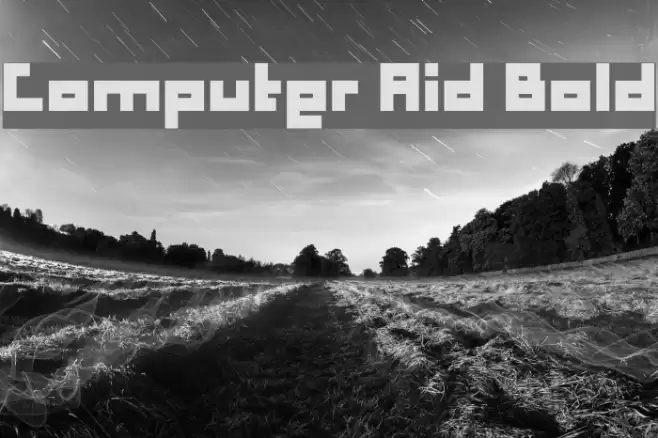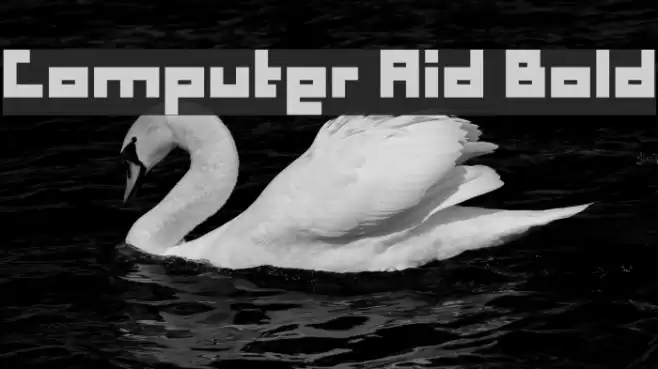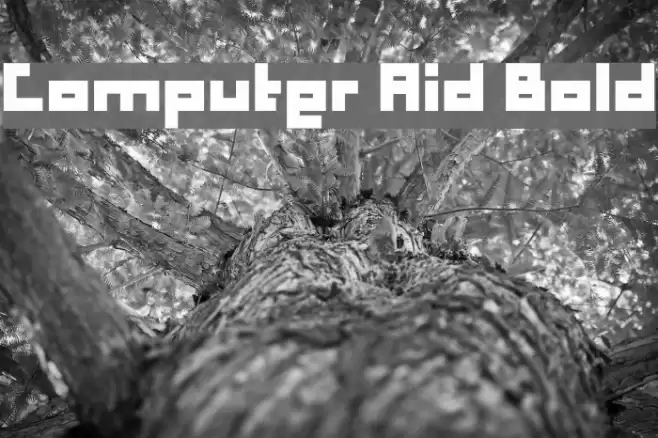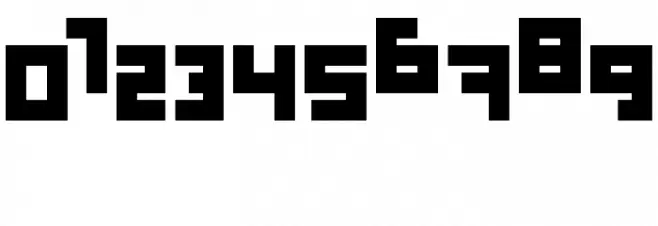
Computer Aid Bold Font
Computer Aid Bold Description
This font features a bold, geometric design with a distinctly digital aesthetic. The characters are constructed with sharp, angular lines and a blocky structure, reminiscent of early computer graphics or pixel art. Each letter and number is uniform in width, contributing to a monospaced appearance, although it is not strictly monospaced. The uppercase and lowercase letters maintain a consistent style, with minimal differentiation between them, enhancing the font's cohesive look. The numerals and special characters follow the same design principles, ensuring a seamless integration across all glyphs. This font's striking, modern style makes it ideal for projects that require a futuristic or tech-oriented theme.
A bold, geometric font with a digital, pixel-art style from Uncategorized fonts.
- Proposed Projects: Ideal for video game design, tech branding, digital art projects, and retro-themed graphics.
- Use Case: Logos, Headlines, Digital Art